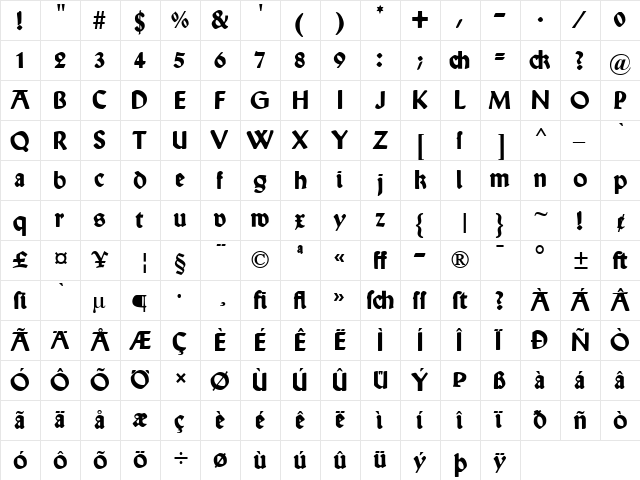
Wallau Unzial Bold
| Designer | Dieter Steffmann |
| Copyright | Copyright (c) Typographer Mediengestaltung, 2002. All rights reserved. Halbfette Wallau mit unzialen Grossbuchstaben, geschaffen von Rudolf Koch 1925-1930. Digitilisiert durch Dieter Steffmann, Kreuztal. |
Design Context for Wallau Unzial Typeface
Wallau Unzial is a composed and adaptable typeface that performs quietly and consistently across a wide range of design contexts. The heavy weight commands attention and anchors typographic hierarchies.